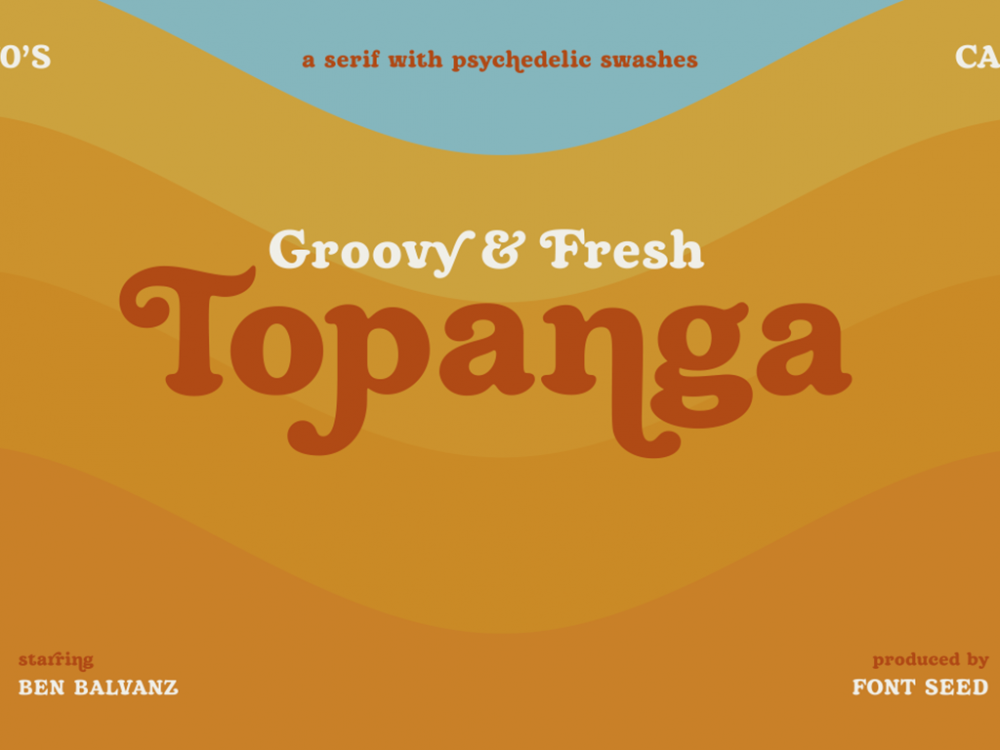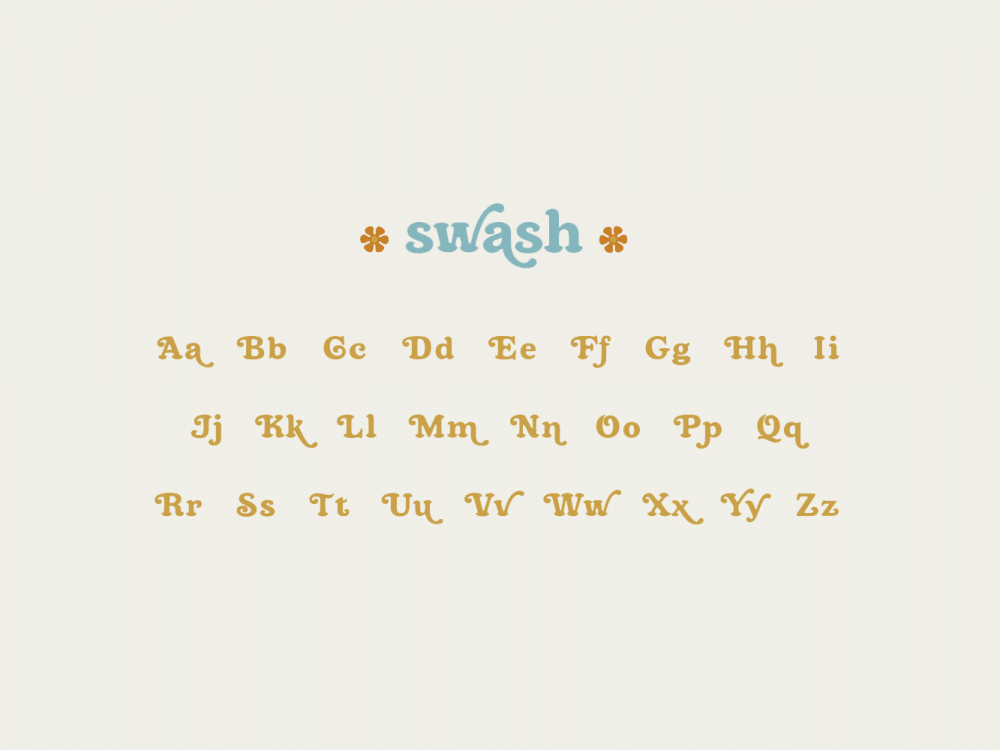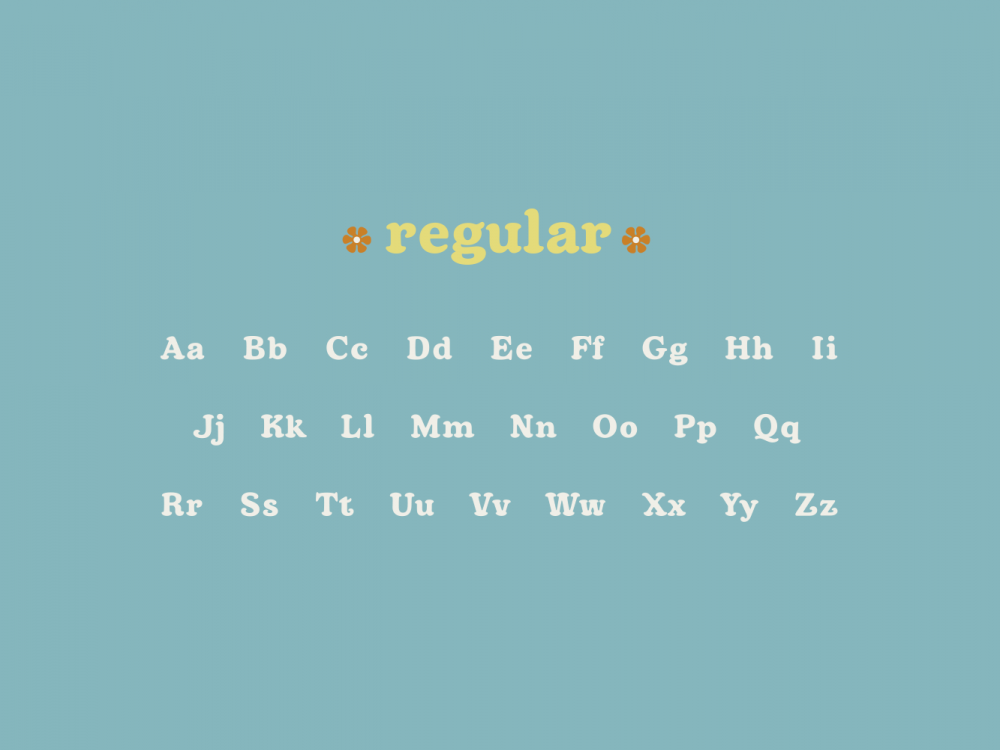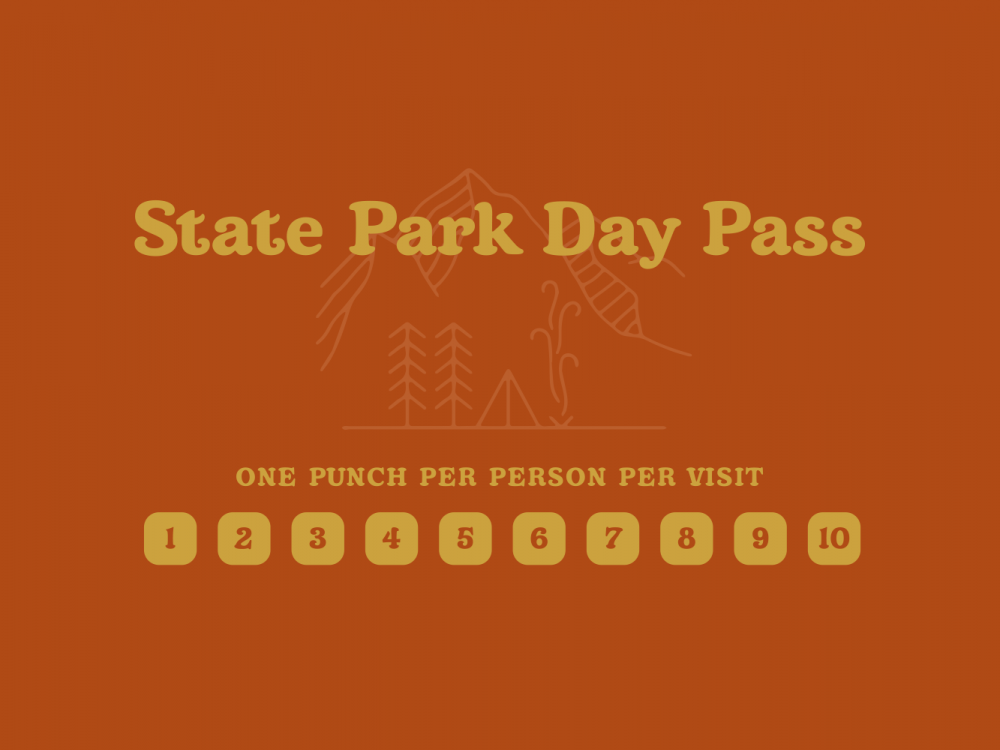
Topanga Font Free
Topanga Font Free is a beautiful unusual font with an abstract atmosphere that will help you create various design projects in an abstract style. Use this font to create cards, invitations, posters, branding, prints, and more. If you want to use it for commercial work please buy the full version.